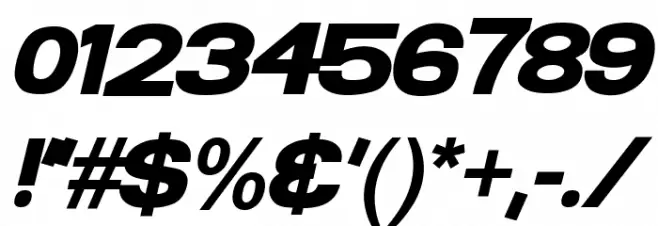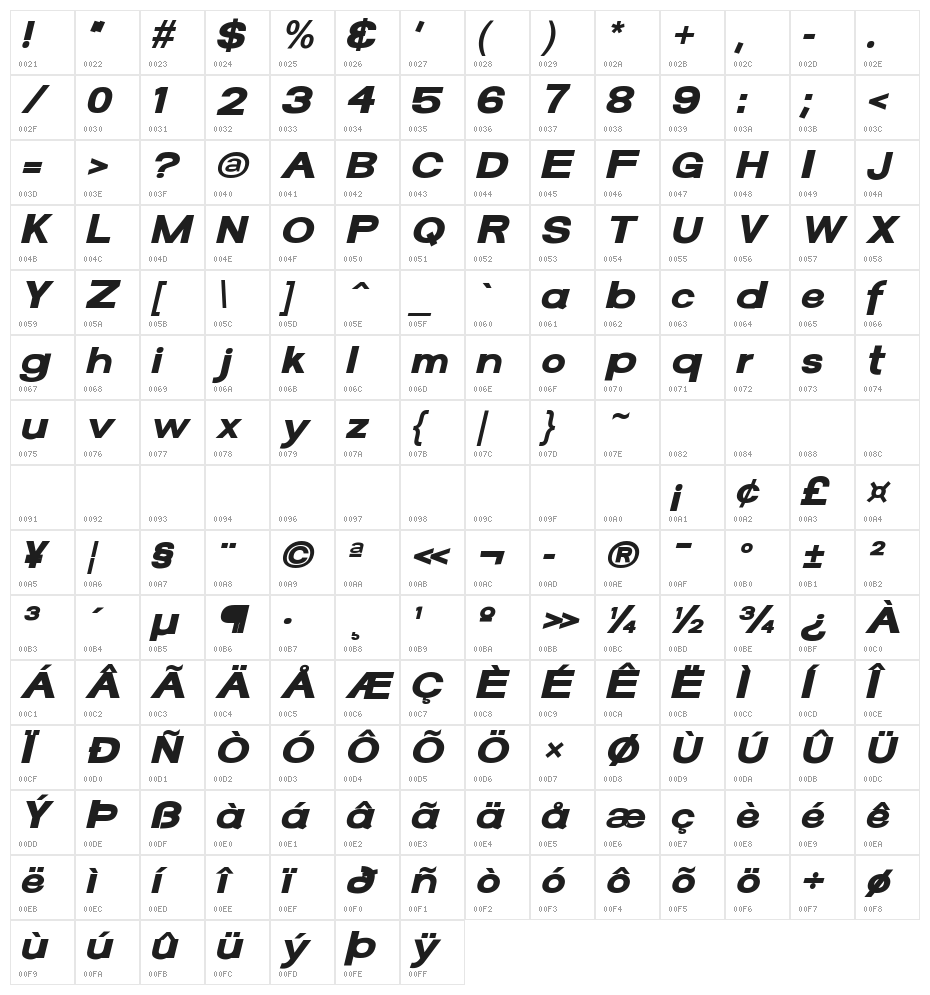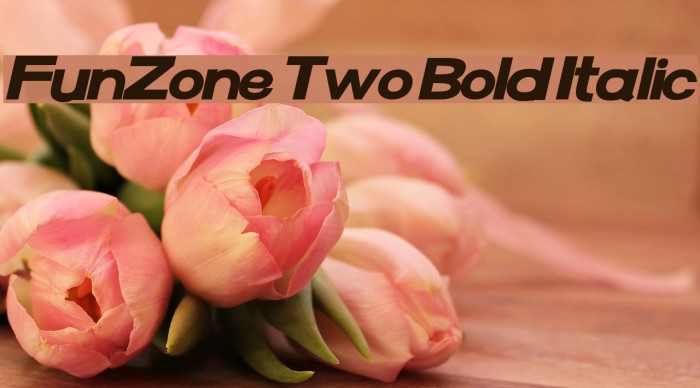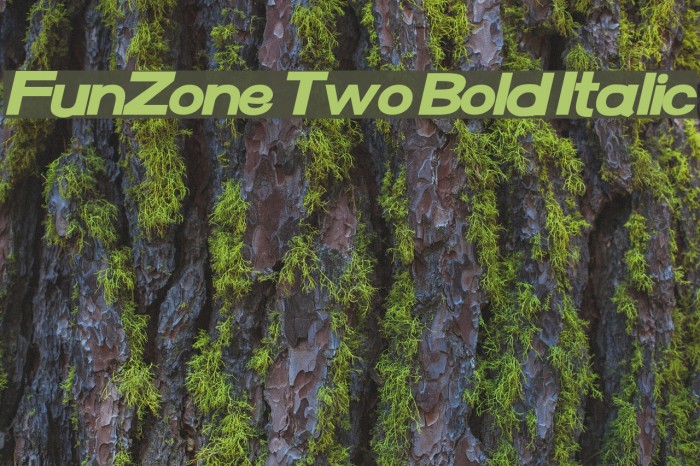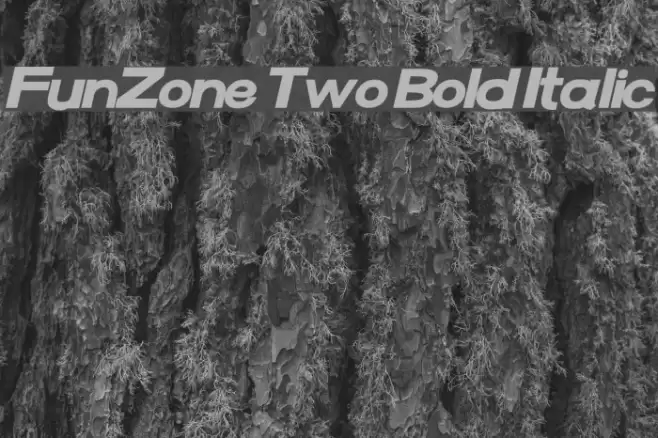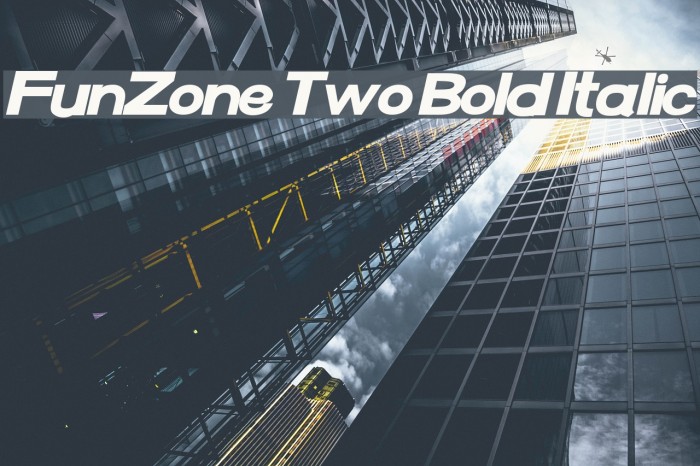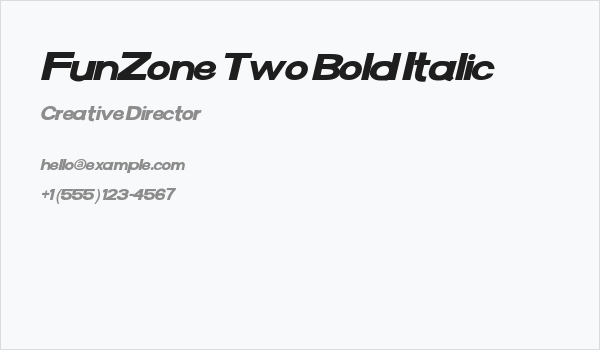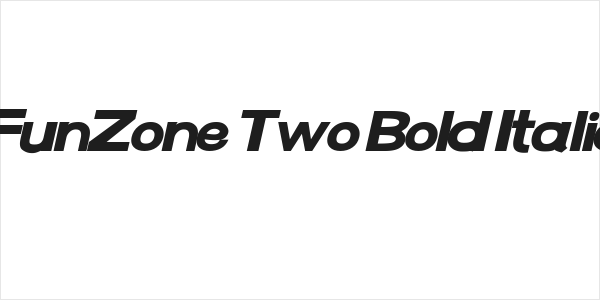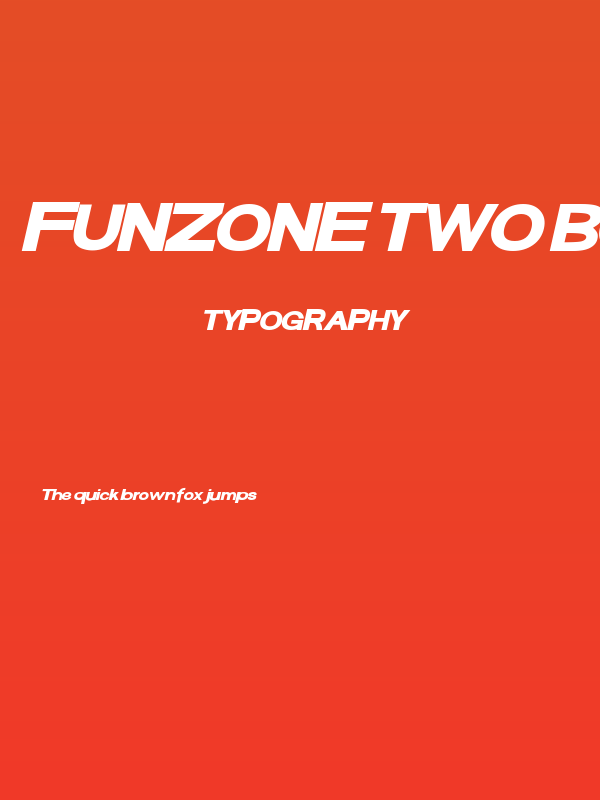
FunZone Two Bold Italic Font
FunZone Two Bold Italic Description
This font features a bold and italic style, characterized by its dynamic and forward-leaning posture. The letters are robust and convey a sense of energy and movement, making it ideal for attention-grabbing designs. The uppercase and lowercase letters maintain a consistent weight, providing a cohesive look across different text sizes. The numerals are clear and bold, ensuring readability. Special characters are well-defined, adding versatility for various design needs. The overall appearance is modern and sleek, suitable for projects that require a strong visual impact.
| Proposed Projects | Ideal for sports branding, dynamic posters, and modern advertising campaigns. |